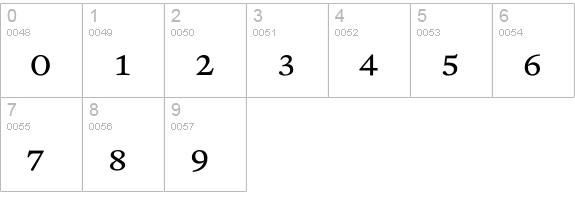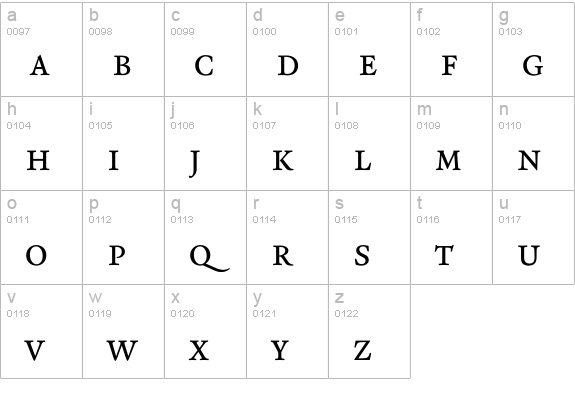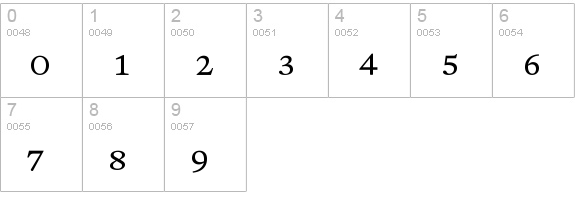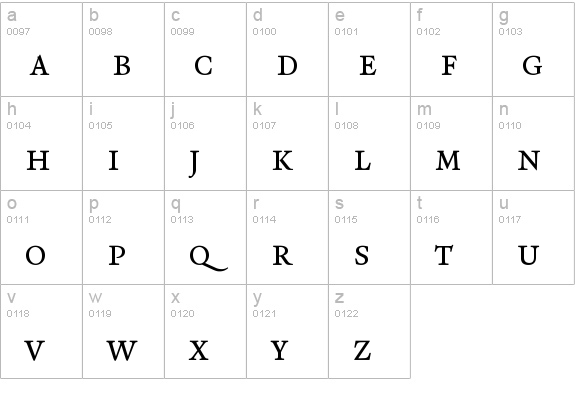
RenardNo3-SmallCaps is a stunning and versatile font that exudes elegance and sophistication. With its unique small caps style, this font adds a touch of distinction to any design project. The clean lines and intricate details of RenardNo3-SmallCaps make it a perfect choice for invitations, logos, headlines, and more. This font offers a wide range of character options, including uppercase and lowercase letters, numerals, punctuation marks, and special characters. The small caps style adds an extra layer of visual interest, allowing designers to create eye-catching typography that stands out from the crowd. RenardNo3-SmallCaps is designed with precision and attention to detail, ensuring that every character is harmoniously balanced and visually pleasing. The smooth and consistent curves make this font a pleasure to read, while the subtle variations in stroke width add depth and dimension to each letterform. One of the best features of RenardNo3-SmallCaps is that it is freely available to download at FontsMarket.com. This means that designers and enthusiasts alike can access this exceptional font without any cost or restrictions. Whether you are a professional graphic designer or a hobbyist, RenardNo3-SmallCaps is a valuable addition to your font library. So, why wait? Download RenardNo3-SmallCaps today from FontsMarket.com and unleash your creativity with this beautiful and versatile font. With its timeless appeal and wide range of applications, RenardNo3-SmallCaps is sure to elevate your design projects to new heights.